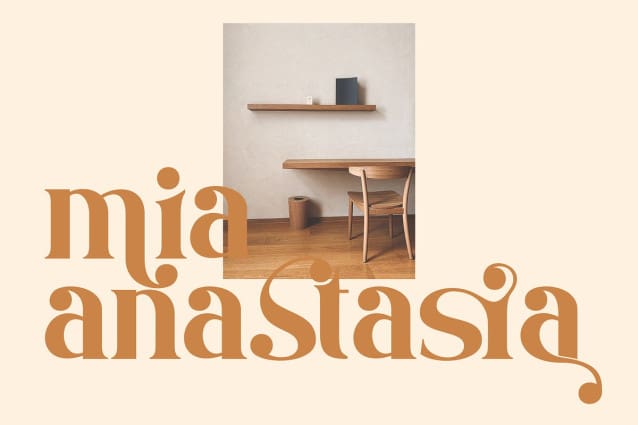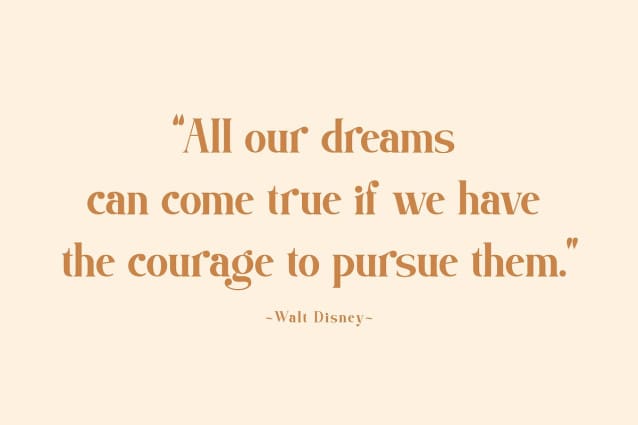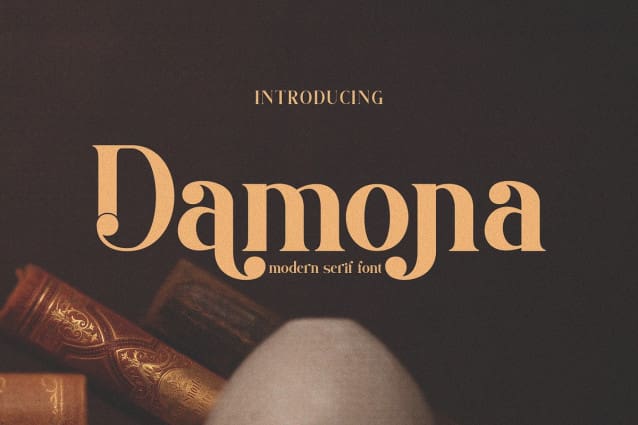
Damona Font
Damona Font – Modern Retro Font, our latest creation, modern serif with various alternates and ligatures, multilingual support, an updated blend of bohemian style, suitable for branding, business, logos, magazines, and others